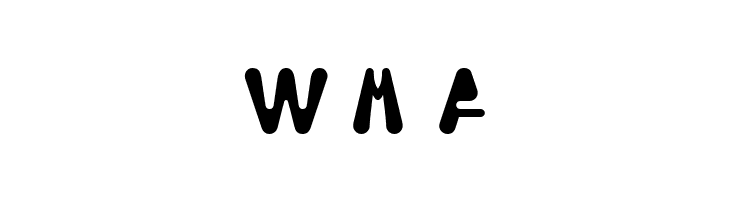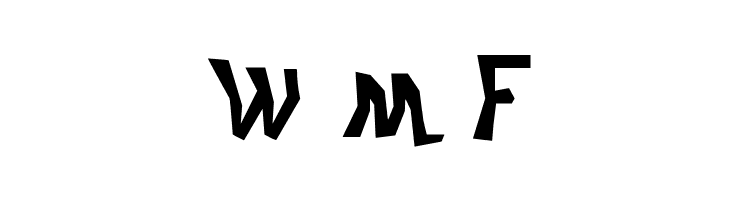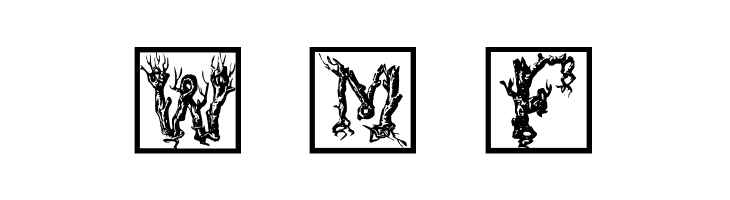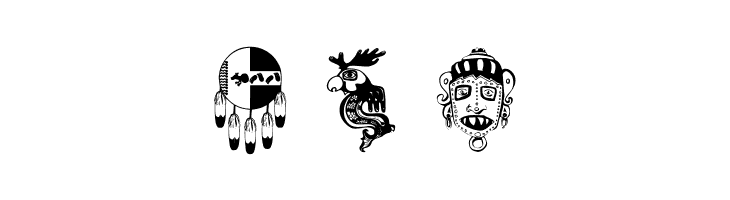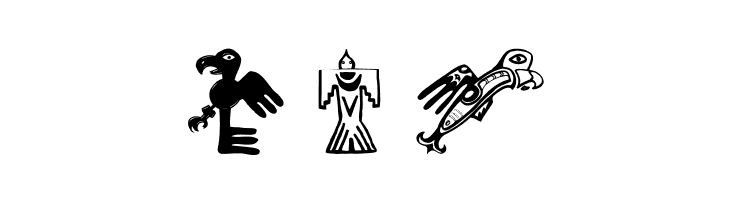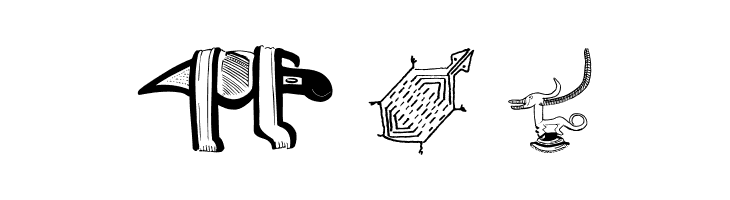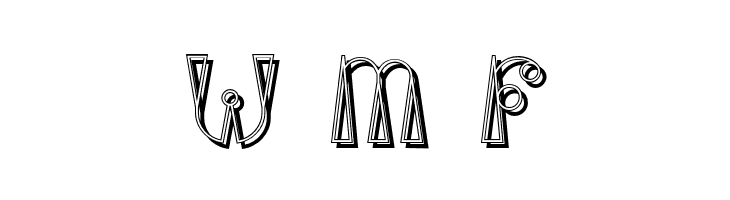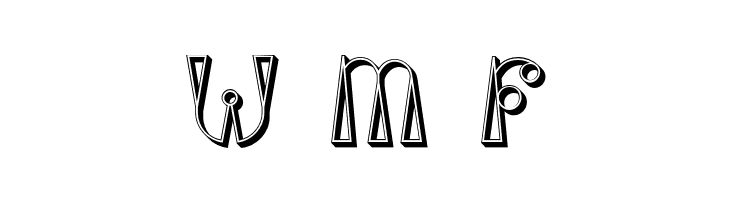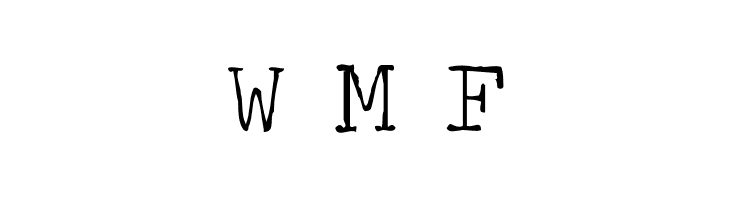
• Traveling _Typewriter
• TravelingTypewriter
( Carl Krull - www.carlkrull.dk )
A vintage typewriter-style font with a slightly distressed, hand-crafted appearance.
• TreeLike
A decorative font with characters resembling intricate tree branches and roots.
• Trek Disruptor Blast
( Fonts by Steve Ferrera )
• TriangleETcircle Shadow
A decorative font with geometric shapes and shadow effects, ideal for creative projects.
• TriangleETcircle Shadowed
A geometric, shadowed font with bold outlines and artistic detailing.
• Triangulor
A bold, geometric font with triangular elements and rounded letterforms.
• TribalBats
A collection of intricate tribal and indigenous-inspired symbols.
• TribalBirdsTheMissingGap
A decorative font featuring tribal bird motifs with intricate and bold designs.
• TribalDesignsOtto
A collection of tribal-inspired illustrations featuring animals and abstract figures with intricate patterns.